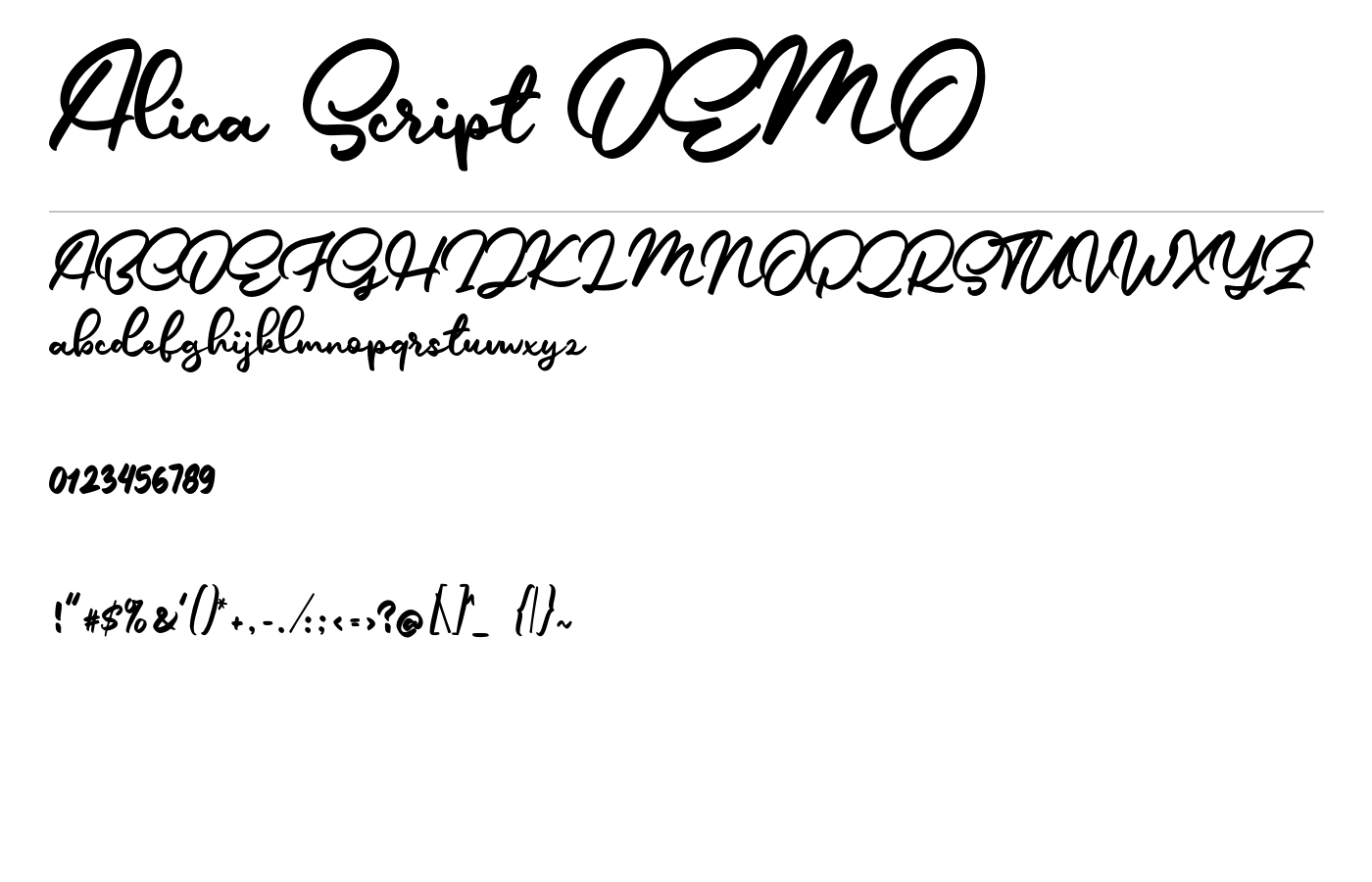
Alica Script DEMO is a lively and bold script font that blends elegance with a modern, handwritten feel. Its smooth, connected strokes and casual yet refined letterforms make it ideal for creating inviting logos, stylish invitations, or eye-catching headlines that convey personality and warmth. This font works best where a personal, creative touch is needed to enhance brand identity or design aesthetics.
Alica Script DEMO Font
About Alica Script DEMO Font
| Font family | Alica Script DEMO Font |